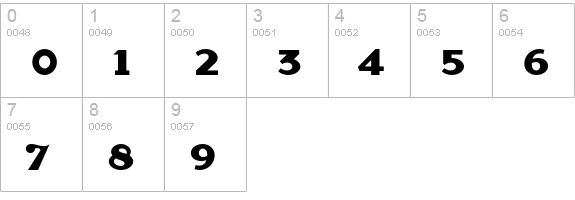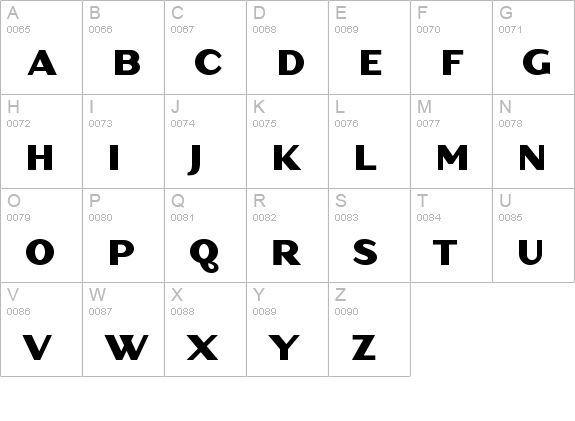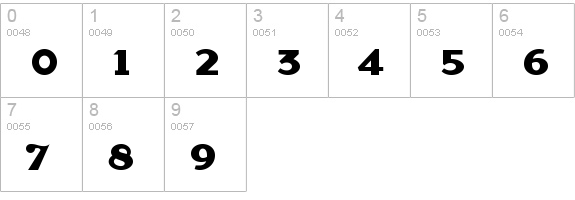
DogmaBold is a striking and modern font that commands attention with its bold and powerful presence. Its clean lines and geometric shapes make it perfect for creating eye-catching designs that demand to be noticed. Whether you're designing a logo, poster, or website, DogmaBold is sure to make a statement. Best of all, DogmaBold is available for free download at FontsMarket.com. This means you can access this versatile and impactful font without any cost, allowing you to unleash your creativity without any restrictions. Don't miss out on this fantastic opportunity to add DogmaBold to your font collection and take your designs to the next level. Download it now and start creating bold and impactful designs that will leave a lasting impression.